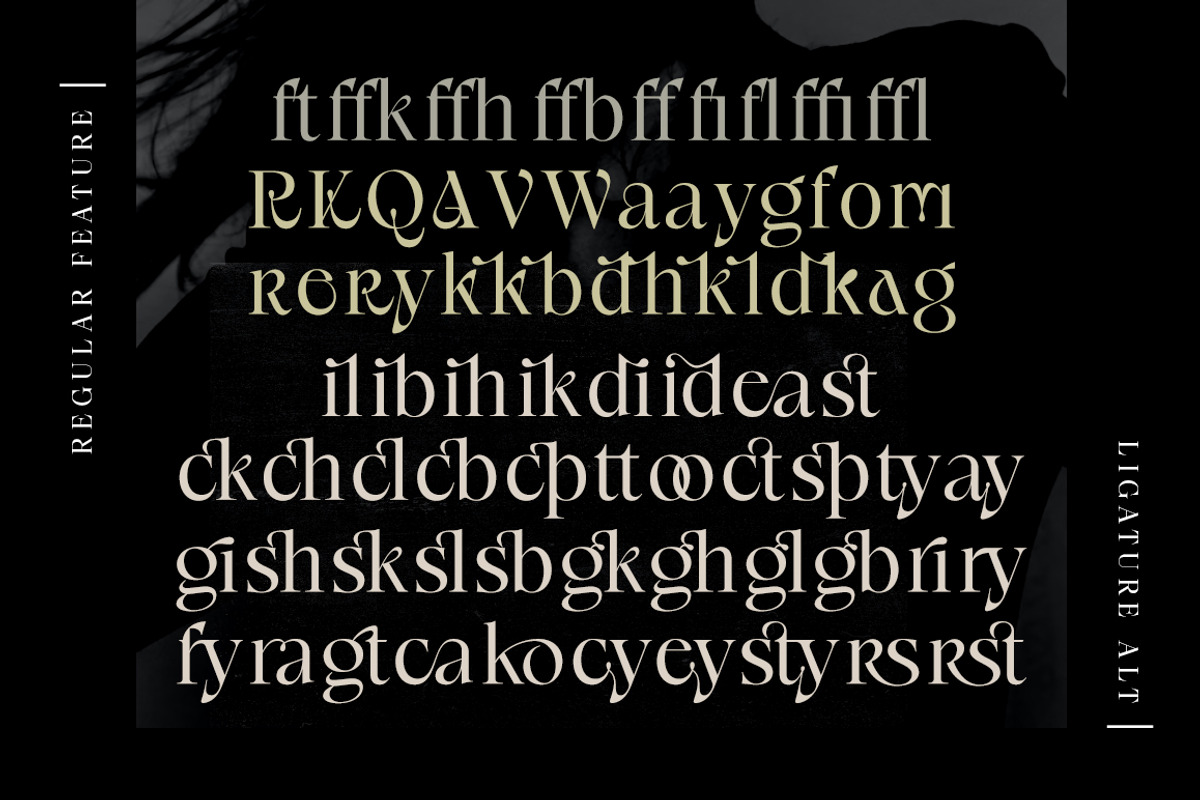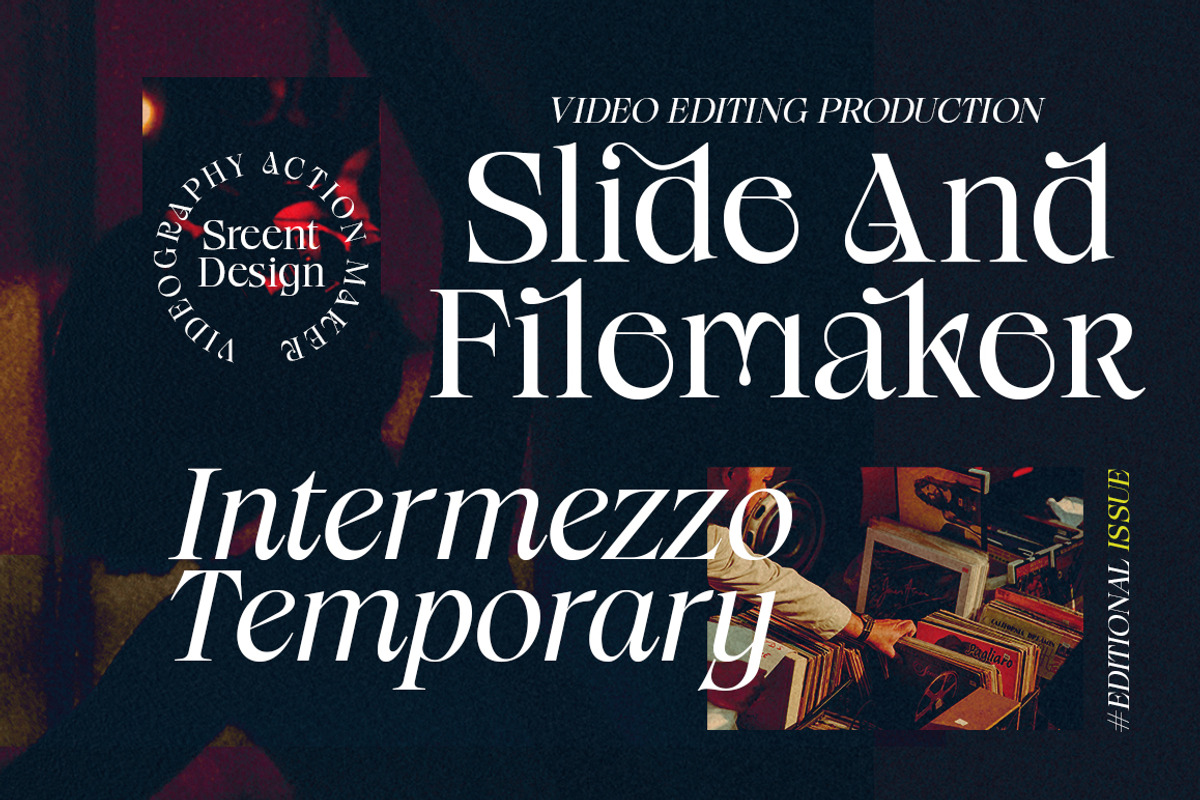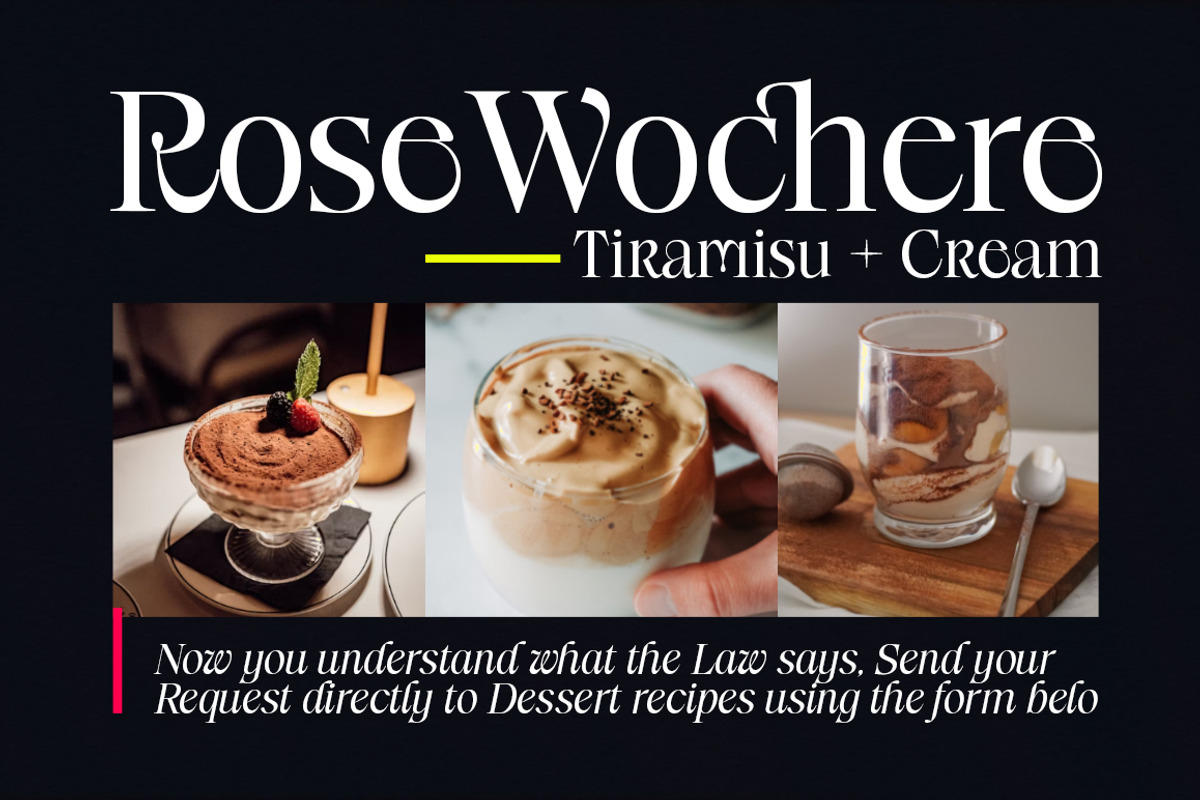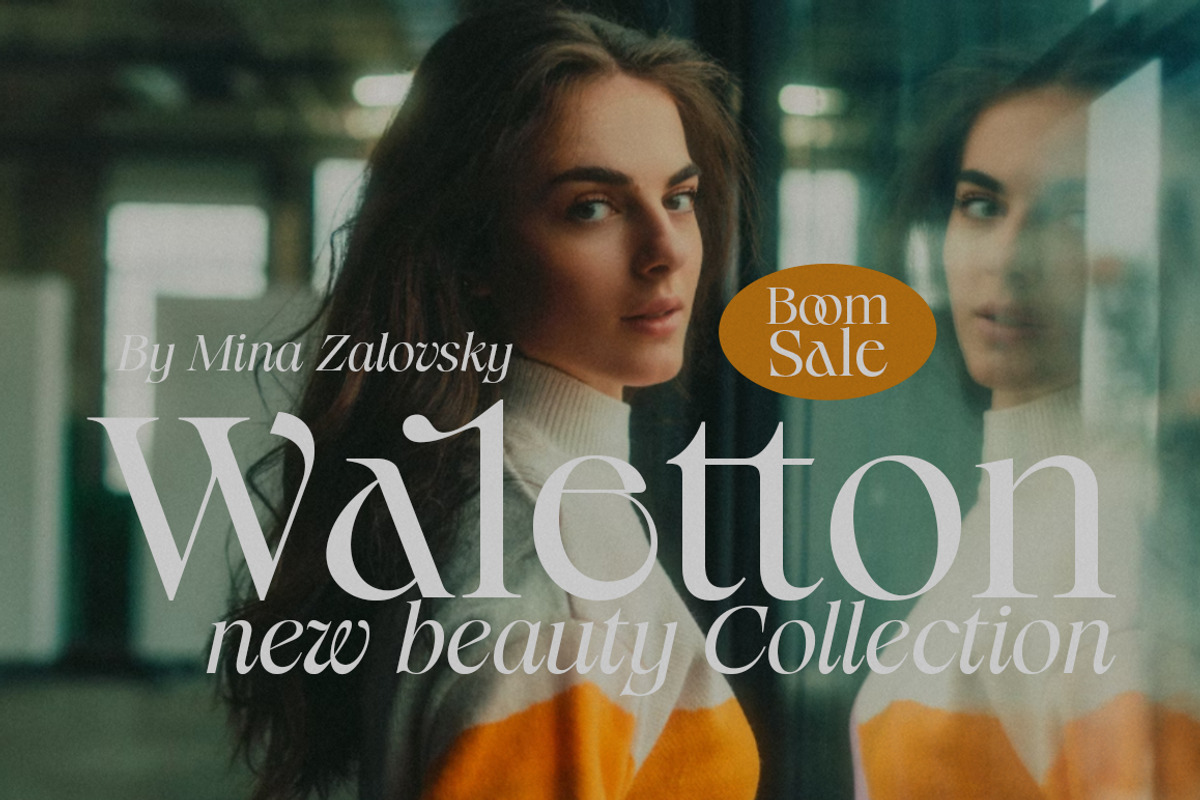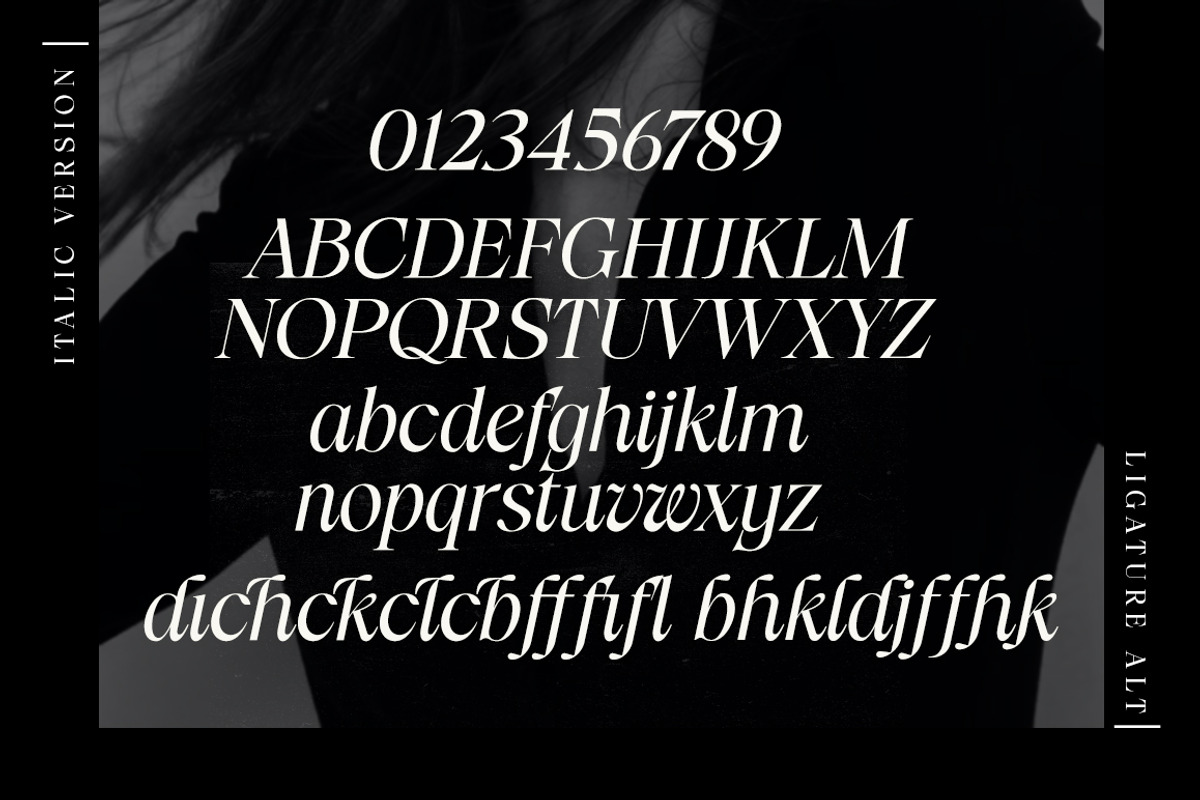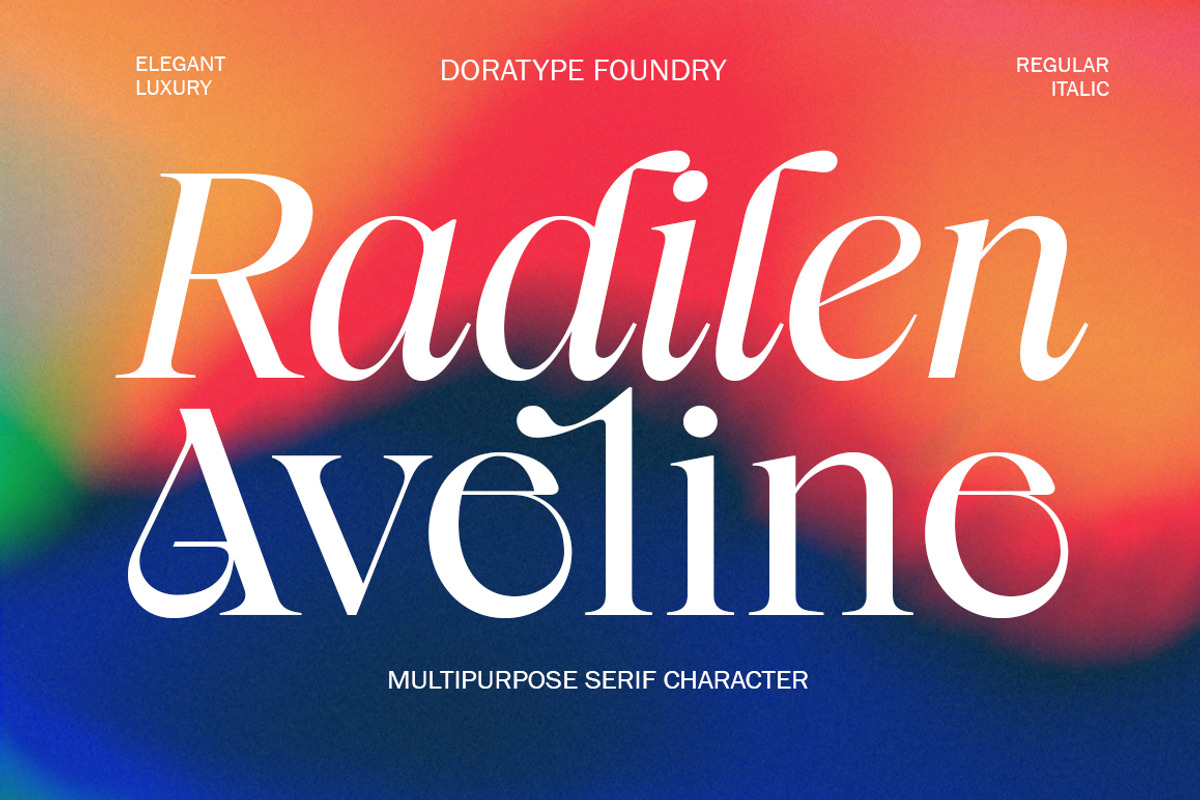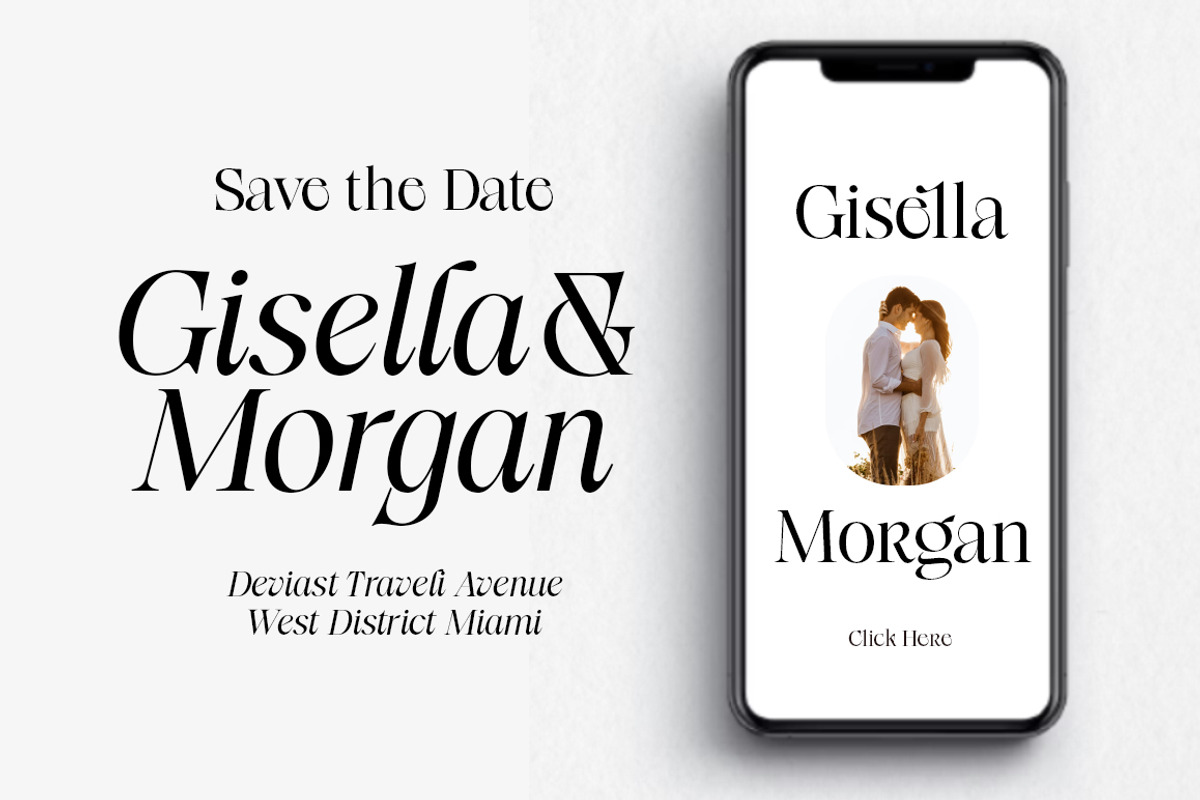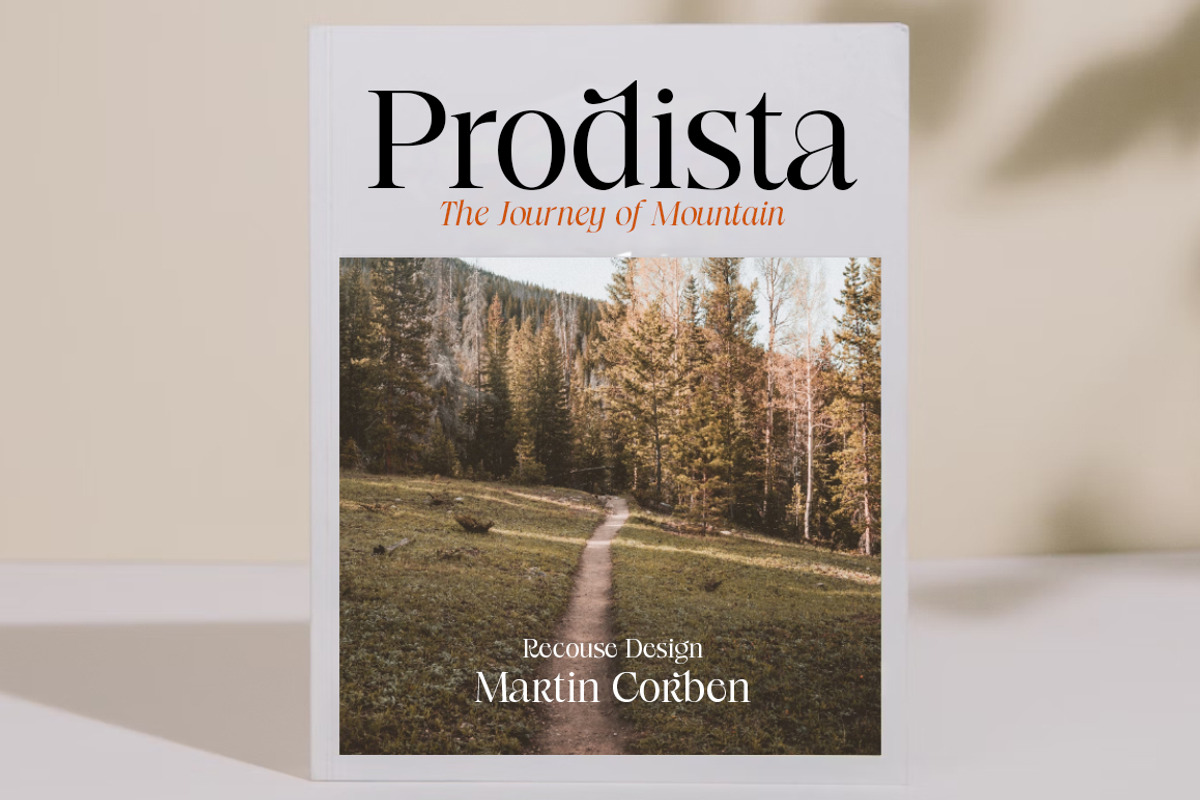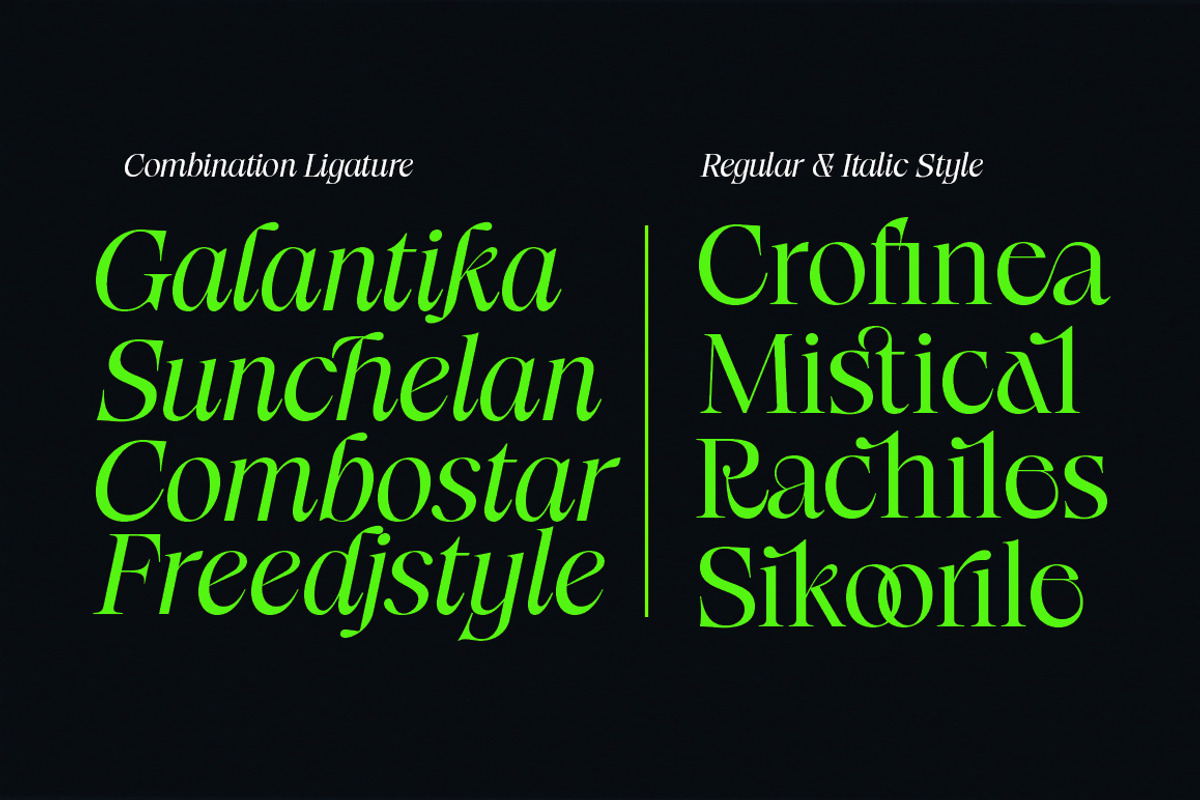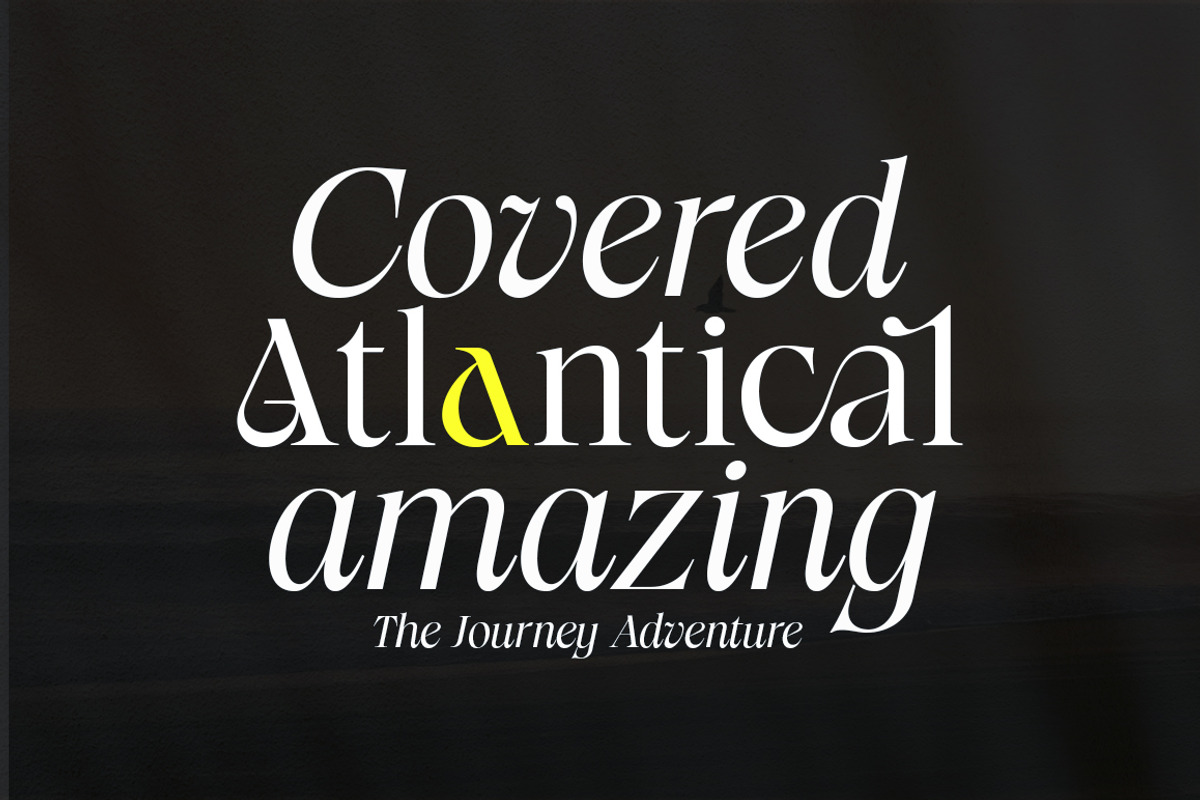
Radilen Aveline
Introducing a fancy serif font with italics.
Radilen Aveline is a series of elegant serif fonts that give traditional design elements a modern feel with their clean lines, smooth curves and sharp details making them suitable for a variety of your design projects making them ideal for titles, headlines, editorial designs, monograms, branding, logos, poster designs, and more.
The regular Radilen Aveline has 47 Ligatures and 28 Alternatives.